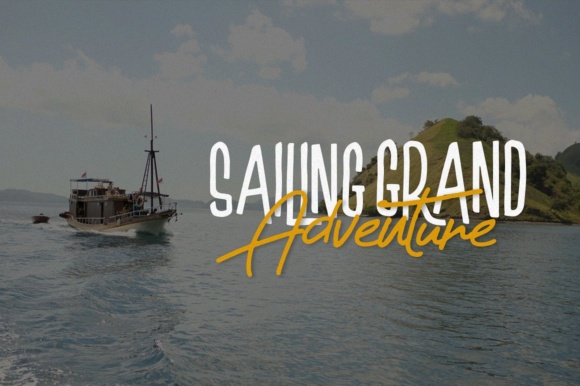
The Born Losers Font: A Stunning Handwriting Duo
So, what do I love about the Born Losers font? Here are a few things that make it stand out:
- ✨ Beautiful handwriting look: The Born Losers font has a stunning, handwritten feel that’s perfect for creating unique and eye-catching designs.
- ✅ Versatile: The font comes in both regular and sans versions, making it a great choice for a wide range of projects.
- ✅ Easy to read: Despite its handwritten look, the Born Losers font is surprisingly easy to read, even at smaller sizes.
- 🤔 Limited language support: The Born Losers font may not support all languages, so be sure to check the character set before using it for a project.
- ⚠️ Not suitable for body text: While the font is easy to read, it’s still a display font at heart, and may not be the best choice for large blocks of body text.
One of the best things about the Born Losers font is its OpenType features and glyphs. Here are a few tips for getting the most out of these features:
- Stylistic alternates: The Born Losers font comes with a range of stylistic alternates that can help you add some extra flair to your designs.
- Glyphs: The font also includes a range of glyphs that can be used to add extra visual interest to your designs.
The Story Behind the Born Losers Font
The Born Losers font was designed by a team of creatives who wanted to create a font that captured the beauty of handwritten text. Inspired by vintage handwriting and lettering, the font is designed to be versatile and easy to use.
| What is the Born Losers font? | The Born Losers font is a beautiful font duo that includes a regular and sans version. |